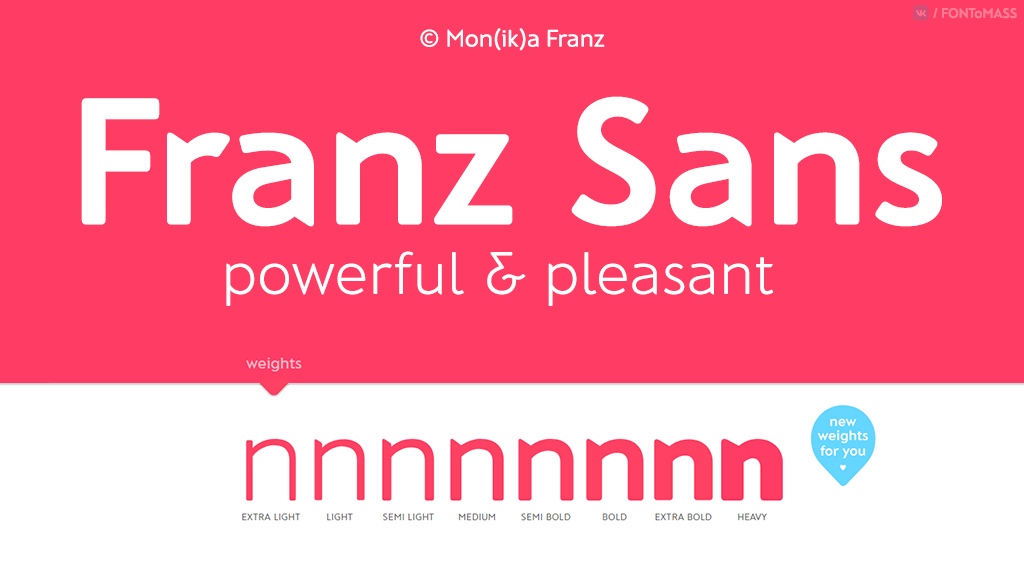
Franz Sans Font is perfect for European cultural institutions, Germanic heritage projects, Austrian tourism materials, sophisticated architectural presentations, classical music programs, alpine resort branding, traditional craft exhibitions, cultural festival promotions, heritage museum displays, and refined Central European communications.
What makes Franz Sans Font so exciting is its sophisticated embodiment of Central European cultural refinement and Germanic design tradition that captures the intellectual depth and artistic heritage of Austrian and German culture through meticulously crafted typography. This culturally inspired typeface features precise letterforms with European proportions and heritage-influenced character variations that immediately convey sophistication, cultural depth, and the timeless elegance of Central European design sensibility. The font's refined construction and culturally aware aesthetic create an instant sense of intellectual authority and European sophistication, making it ideal for projects that need to communicate cultural heritage, artistic excellence, and the enduring influence of Germanic intellectual tradition to audiences seeking authentic European experiences and meaningful cultural connections.
The Franz Sans Font family typically includes multiple sophisticated weights and European styles, often featuring light through bold variations along with elegantly crafted italic versions and condensed alternatives. Central European font families frequently offer extensive character sets including Germanic language support, cultural symbols, and traditional typography elements that ensure optimal communication across diverse European cultural requirements and international heritage applications.
Franz Sans Font Free Download offers designers an exceptional resource for creating culturally authentic and sophisticatedly European designs. Whether you're developing materials for Austrian cultural organizations, crafting branding for Germanic heritage sites, or designing communications for classical music institutions that celebrate Central European artistic tradition and intellectual heritage, this font delivers the refined presence that culturally conscious audiences and European heritage enthusiasts appreciate and find meaningful.
The European nature of Franz Sans Font makes it particularly effective for targeting demographics that value cultural sophistication and Germanic intellectual tradition in their cultural and educational pursuits. Cultural marketers and heritage organizations will find this font especially valuable for materials that must establish immediate cultural credibility and connect with audiences seeking authentic European experiences and meaningful Germanic cultural engagement.
What sets Franz Sans Font apart is its ability to convey Germanic cultural authority while maintaining the accessibility necessary for effective contemporary communication. This balanced characteristic makes it suitable for both traditional heritage applications and modern cultural contexts where projecting European sophistication and maintaining international appeal must work together harmoniously.
Professional designers recognize that Franz Sans Font brings invaluable European credibility to projects across industries including cultural heritage, tourism, classical arts, and international education. Its Germanic character and sophisticated appeal make it essential for organizations whose mission centers on preserving Central European culture, promoting Germanic heritage, and creating meaningful connections between traditional European values and contemporary cultural appreciation.
The thoughtfully crafted cultural authenticity of Franz Sans Font ensures consistent European messaging across all heritage-focused communication applications while honoring the fundamental importance of Germanic intellectual tradition and Central European cultural sophistication.